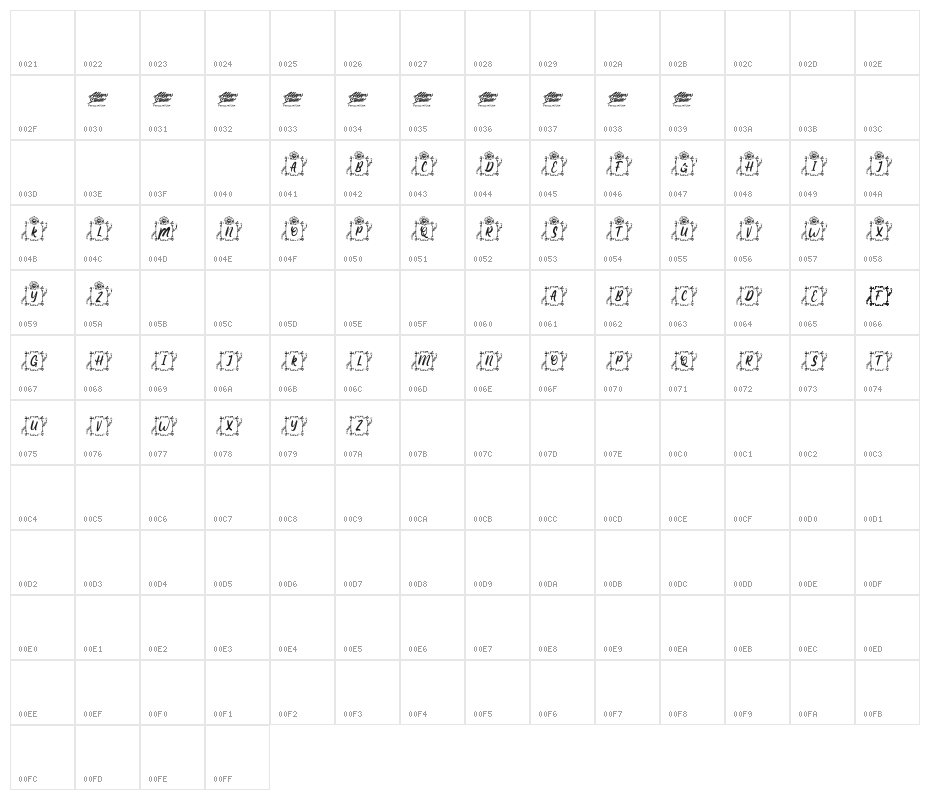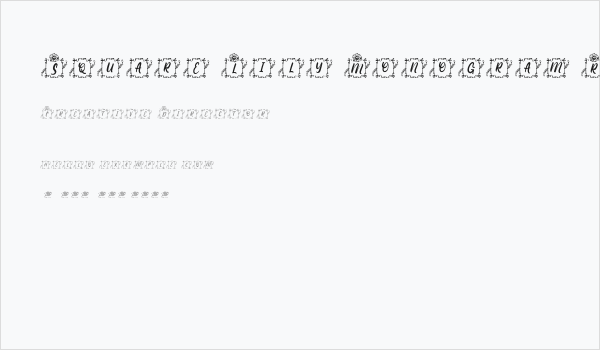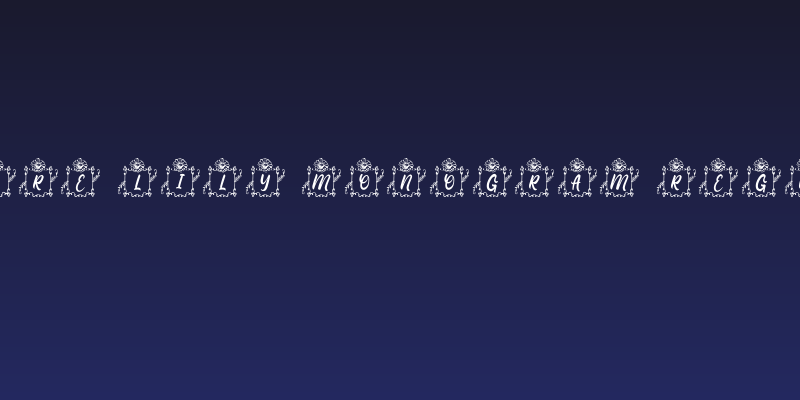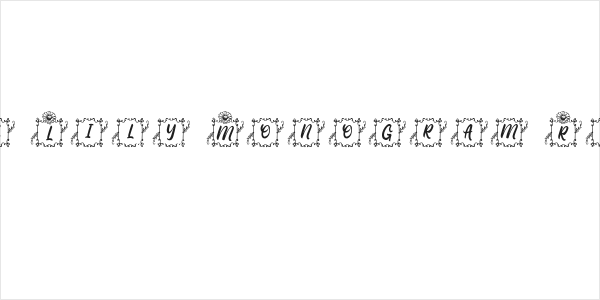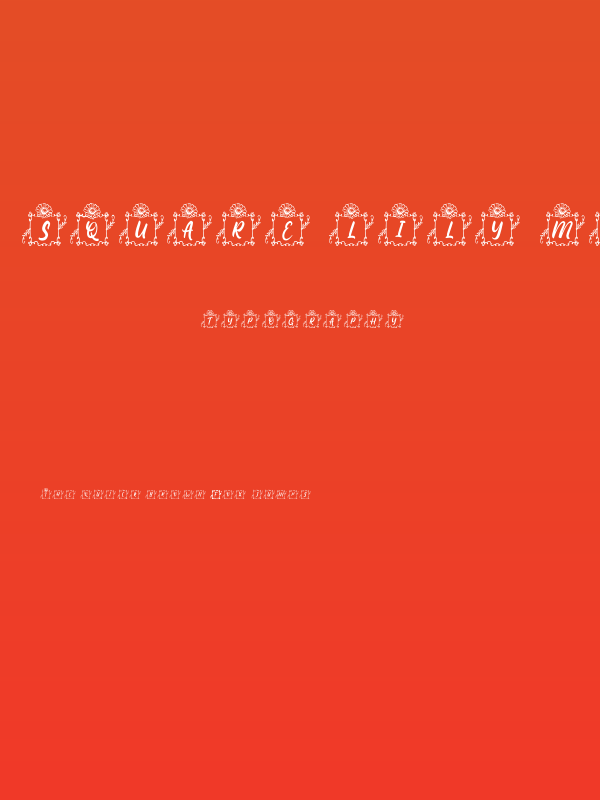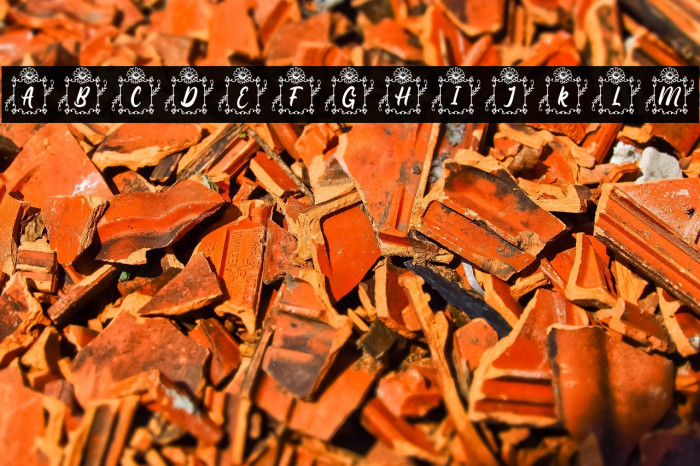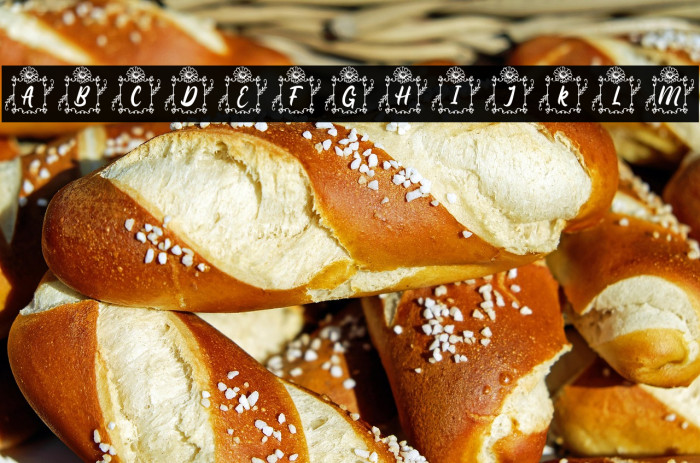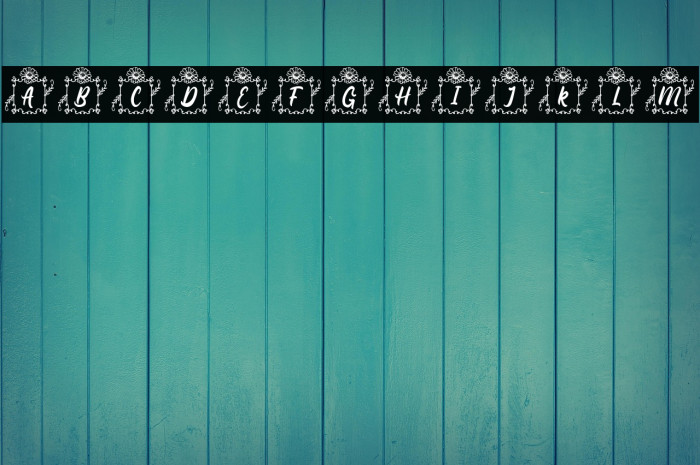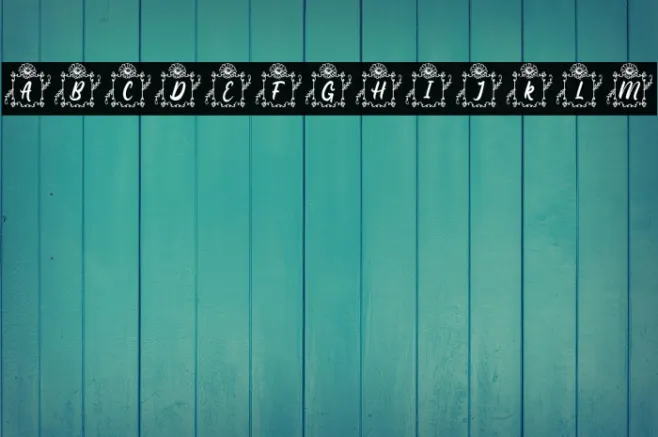
Square Lily Monogram Regular Font
Square Lily Monogram Regular Description
This font features an elegant and decorative style, characterized by its ornate floral embellishments surrounding each letter. The uppercase letters are encased in a square frame, giving a monogram-like appearance. The intricate floral designs add a touch of sophistication and vintage charm, making it ideal for formal and decorative purposes. The letters themselves are bold and clear, ensuring readability while maintaining an artistic flair. This font is perfect for creating personalized monograms, wedding invitations, or any project that requires a touch of elegance and uniqueness.
| Overall Style | Vintage, Decorative |
| Use Case | Logos, Invitations, Decorative Text |
| Proposed Projects | Ideal for wedding invitations, personalized monograms, luxury branding, and decorative stationery. |